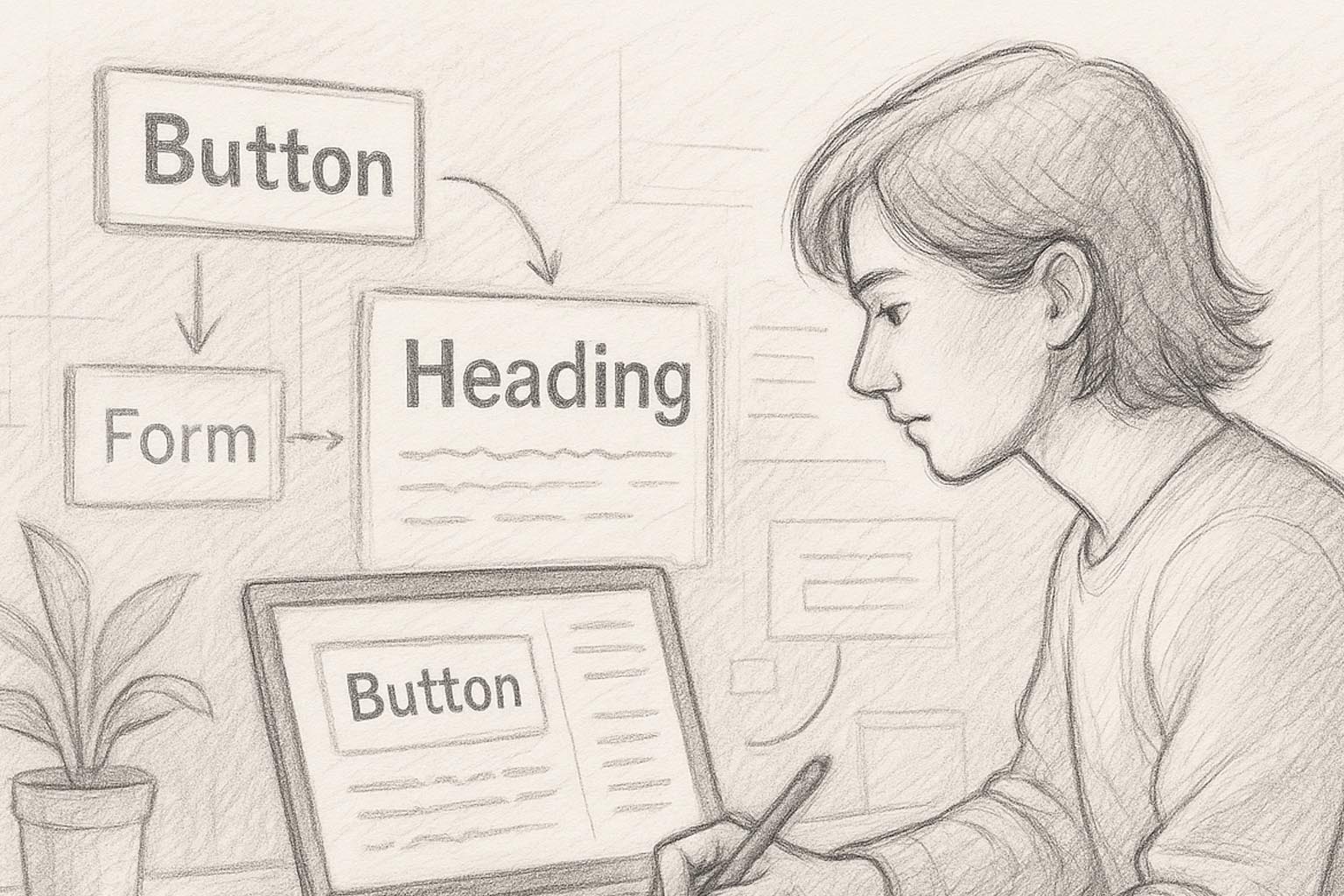
When Words and Fonts Work Together
UX writing is more than writing buttons or microcopy—it’s about guiding the user through an experience. But even the clearest text can get lost in poor design. That’s where typography comes in.
Typography is the voice of UX writing. It shapes how people read, feel, and move through a digital product. When done right, typography makes user journeys feel effortless. When done wrong, it turns navigation into a struggle.
This article explores how UX writing and typography work together to enhance user flow—and how you can master both to create delightful, high-performing interfaces.
Chapter 1: What Is User Flow?
Before diving into fonts and copy, let’s define user flow.
A user flow is the sequence of actions a user takes to accomplish a task within a product. For example:
- Signing up for an account
- Completing a checkout process
- Booking a ticket
- Uploading a file
Good user flow = Clear direction + Minimal friction
Typography and UX writing are two of the most underestimated tools to make this happen.
Chapter 2: Typography as a Visual Hierarchy Tool
Typography provides visual structure, helping users know:
- What to read first
- What action to take
- Where they are in the process
Let’s look at some key typographic elements that influence user flow:
| Typography Element | UX Impact |
|---|---|
| Font Size | Establishes importance; draws attention to calls-to-action |
| Font Weight | Helps distinguish headlines, labels, and clickable elements |
| Line Height | Improves readability for longer explanations or body copy |
| Color & Contrast | Enhances visibility, accessibility, and user confidence |
| Spacing | Prevents visual clutter and fatigue during interactions |
Together, these elements allow UX writing to breathe, be scannable, and guide action.
Chapter 3: UX Writing Principles Enhanced by Typography
Here’s how good typography amplifies solid UX writing:
1. Clarity
- Don’t just write clear copy—display it clearly.
- Example: “Continue” on a button is great—but not if it’s buried in tiny grey text.
Typography Tip: Use a medium or bold weight for action buttons. Minimum size: 16px.
2. Brevity
- Short copy isn’t helpful if it feels invisible.
Typography Tip: Use whitespace and strategic placement to highlight key words like “Free,” “Now,” or “Secure.”
3. Context
- Help users understand where they are.
Typography Tip: Use font weight and subtle sizing to differentiate steps in a process (e.g., Step 1 / Step 2 / Step 3).
4. Tone of Voice
- Your tone (friendly, serious, playful) should match the font style.
Typography Tip: A rounded sans-serif (like Nunito) feels welcoming. A sharp geometric font (like Futura) feels modern and efficient.
Chapter 4: Font Choices That Support UX Writing
Here’s a breakdown of typefaces commonly used in UX—and why they work:
1. Sans-Serif Fonts
- Examples: Roboto, Open Sans, Lato, Inter
- Why they work: Clean, modern, and readable across all devices
- Best for: Body copy, form labels, mobile screens
2. Geometric Sans-Serif
- Examples: Futura, Montserrat, Circular
- Why they work: Stylish and contemporary; excellent for headers and CTAs
- Best for: Marketing sites, product landing pages
3. Humanist Sans
- Examples: Calibri, Segoe UI
- Why they work: Friendly and highly legible; great for accessibility
- Best for: Apps targeting diverse users or older demographics
Avoid:
- Overly decorative display fonts
- Fonts with narrow spacing
- Script or serif fonts for interactive elements
Chapter 5: Microcopy and Font Styling
Microcopy (think tooltips, labels, error messages) must be fast to read and impossible to miss.
Tips:
- Use italic for emphasis (but sparingly)
- Use bold for high-priority phrases
- Keep error messages red, but ensure it meets contrast ratios
- Never go below 12px font size on any device
- Use consistent font choices across states (e.g., inactive vs active fields)
Example:
✗ “Something went wrong” (small, grey, hard to read)
✓ “⚠ Please check your email format” (bold, red, 14px)
Chapter 6: How Typography Affects Scanning Behavior
Users don’t read. They scan.
UX writing must align with typographic choices that support:
- F-pattern scanning
- Z-pattern flow on mobile
- Quick prioritization of action words
Strategies:
- Use bold headers to group sections
- Place key info in the top-left or center
- Avoid long paragraphs—aim for 2–3 lines max
- Use bullet lists (like this one 😎)
Fonts with high x-height (like Inter or Source Sans Pro) are more scannable than fonts with narrow bodies.
Chapter 7: Accessibility Considerations in Typographic UX
Accessible design = Good UX for all.
Key rules:
- Font size: Minimum 16px for body text
- Contrast ratio: At least 4.5:1 between text and background
- Line height: 1.4–1.6x the font size
- No all-caps body copy—it’s harder to read
- Avoid justified text—it creates uneven spacing
Bonus: Use tools like Stark, Color Oracle, or Google Lighthouse to test accessibility of your typography + writing.
Chapter 8: Typography for Mobile UX Writing
Small screens = higher stakes for readability.
Best Practices:
- Stick to 1–2 font styles
- Use font size scale:
- Header: 24–28px
- Subhead: 18–20px
- Body: 14–16px
- Avoid dense paragraphs—space out microcopy
- Use font that renders well across Android/iOS (like Roboto or SF Pro)
Tip: Preview your copy in real screen size before pushing live.
Chapter 9: Real-World Examples
✅ Slack
- Uses clear, friendly microcopy
- Pairs with bold headers and subtle sans-serif body fonts
- Error messages are visible but never panic-inducing
✅ Google Forms
- Clean Roboto font hierarchy
- Microcopy explains context: “Required,” “Your email address won’t be shared.”
- Clear visual breaks help user flow
❌ Bad UX: Overdesigned Portfolio Sites
- Script fonts for body text
- All-caps menus with no spacing
- Tiny tooltips that vanish too quickly
Typography should guide, not confuse.
Conclusion: Design Words Like a Journey
Typography and UX writing are two halves of the same brain. Together, they shape how users think, feel, and act.
So the next time you write a button, ask yourself:
- Can users read it quickly?
- Does the font choice support the message?
- Is the tone consistent and legible?
Because in UX, great writing is not enough—it must be seen, felt, and followed.